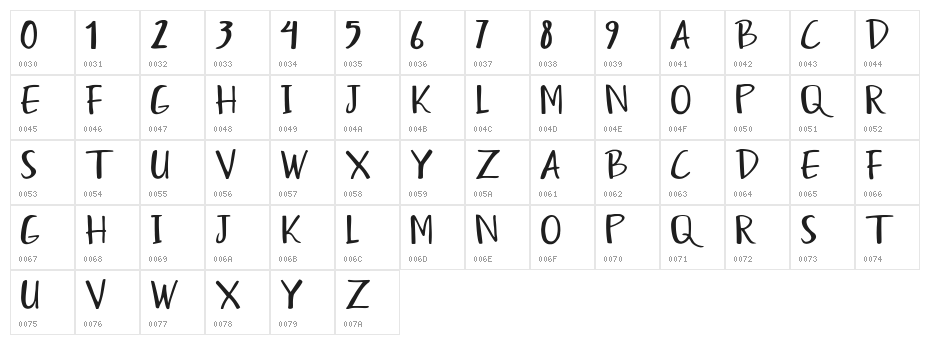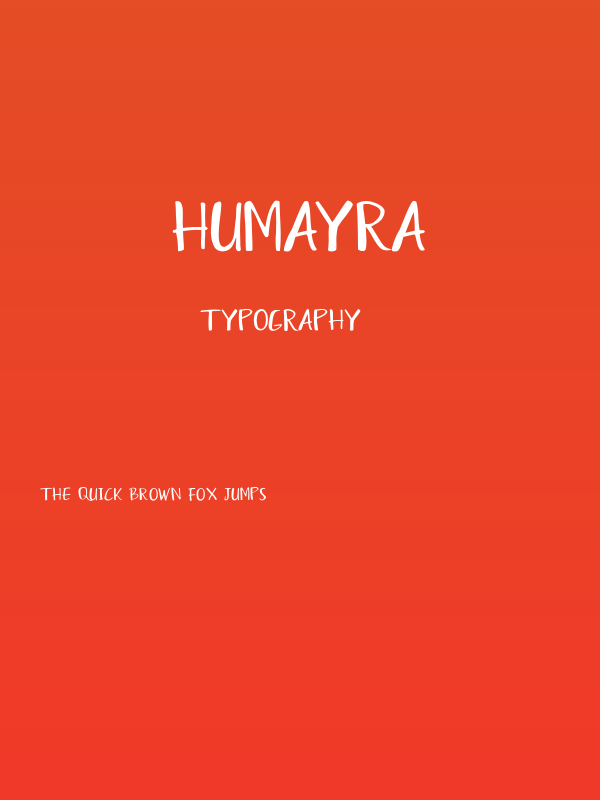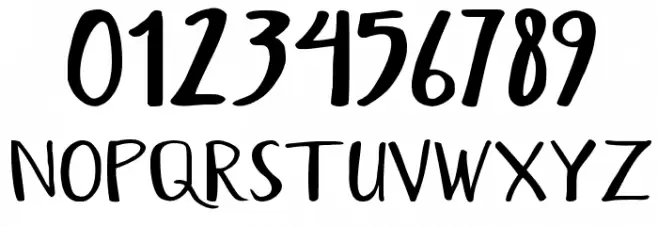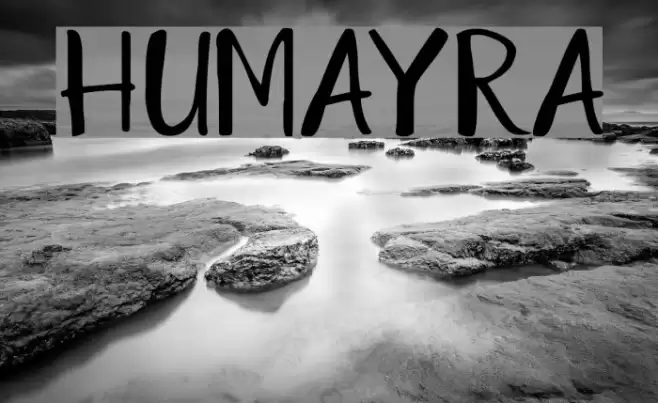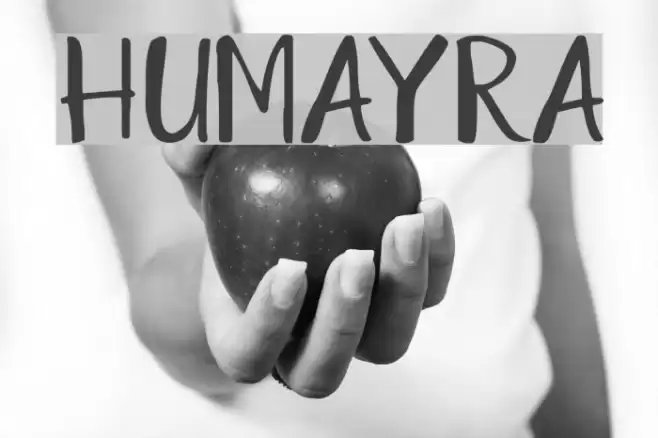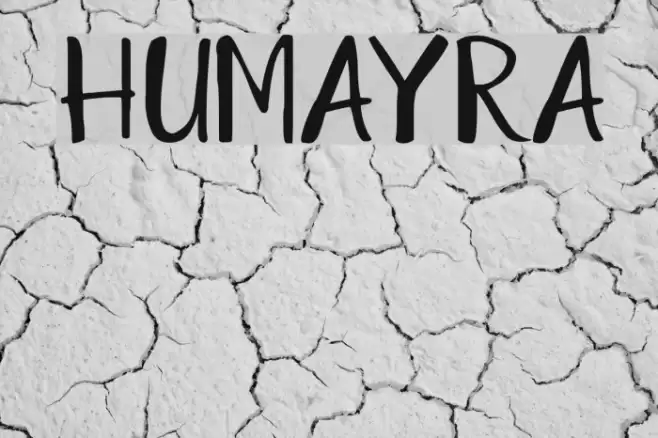
Humayra Font
Humayra Description
This font features a playful and casual handwritten style, characterized by its smooth curves and slightly irregular strokes that give it a personal touch. The letters are well-spaced, ensuring readability while maintaining a whimsical appearance. The uppercase and lowercase letters are consistent in style, with a slight slant that adds to the informal and friendly vibe. The numerals are bold and clear, matching the overall aesthetic of the alphabet. This font is versatile, suitable for projects that require a touch of personality and warmth.
| Proposed Projects | Ideal for greeting cards, invitations, personal branding, and social media graphics. |